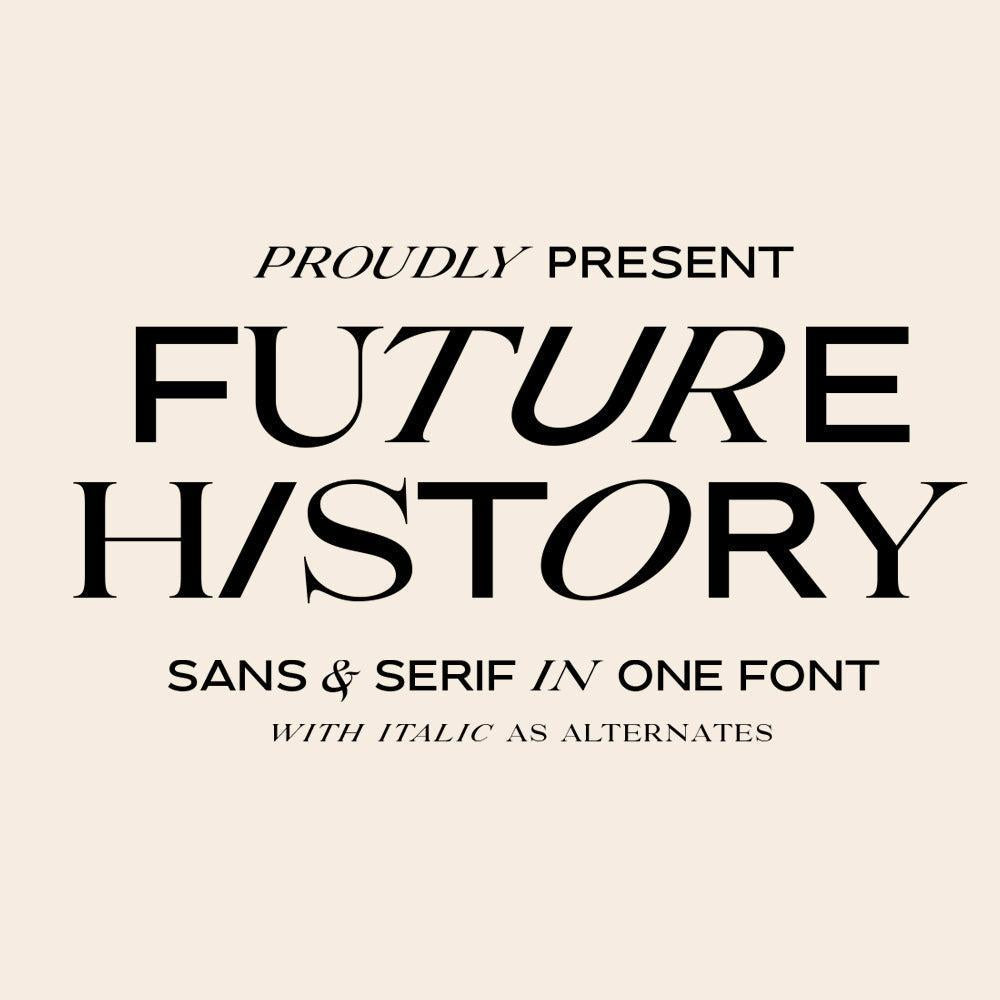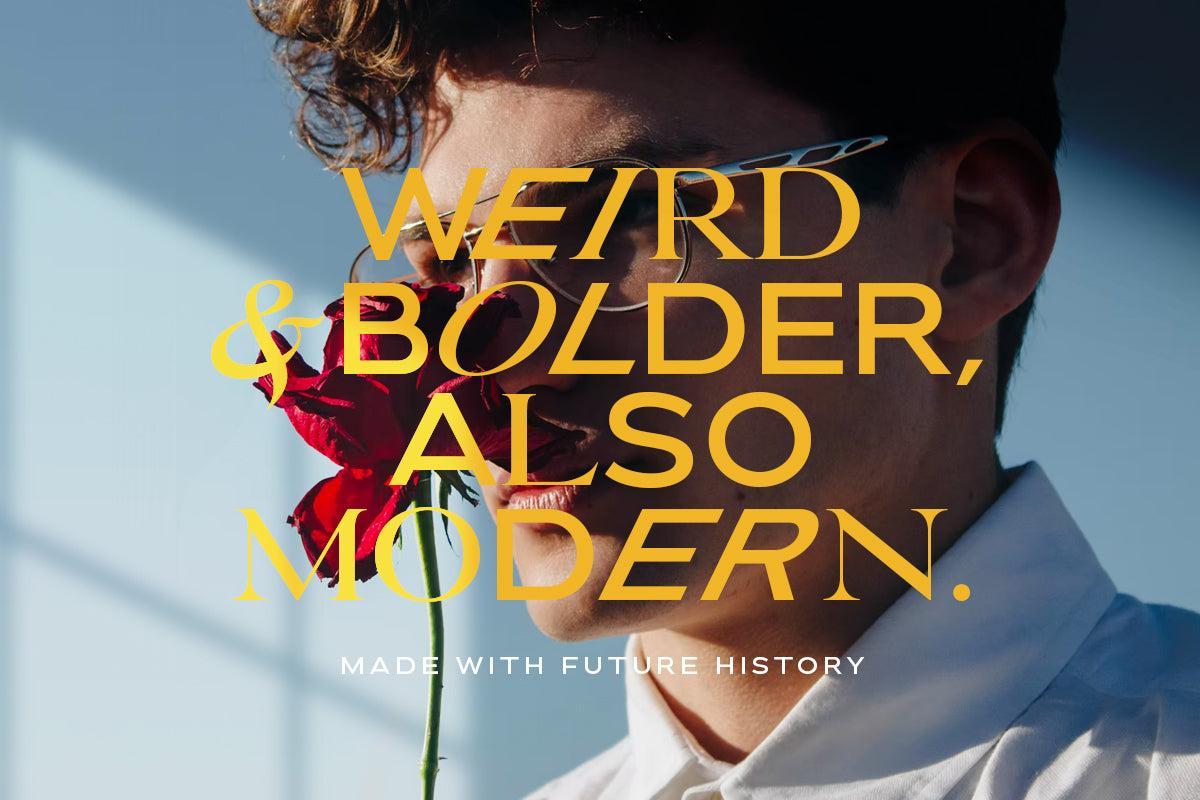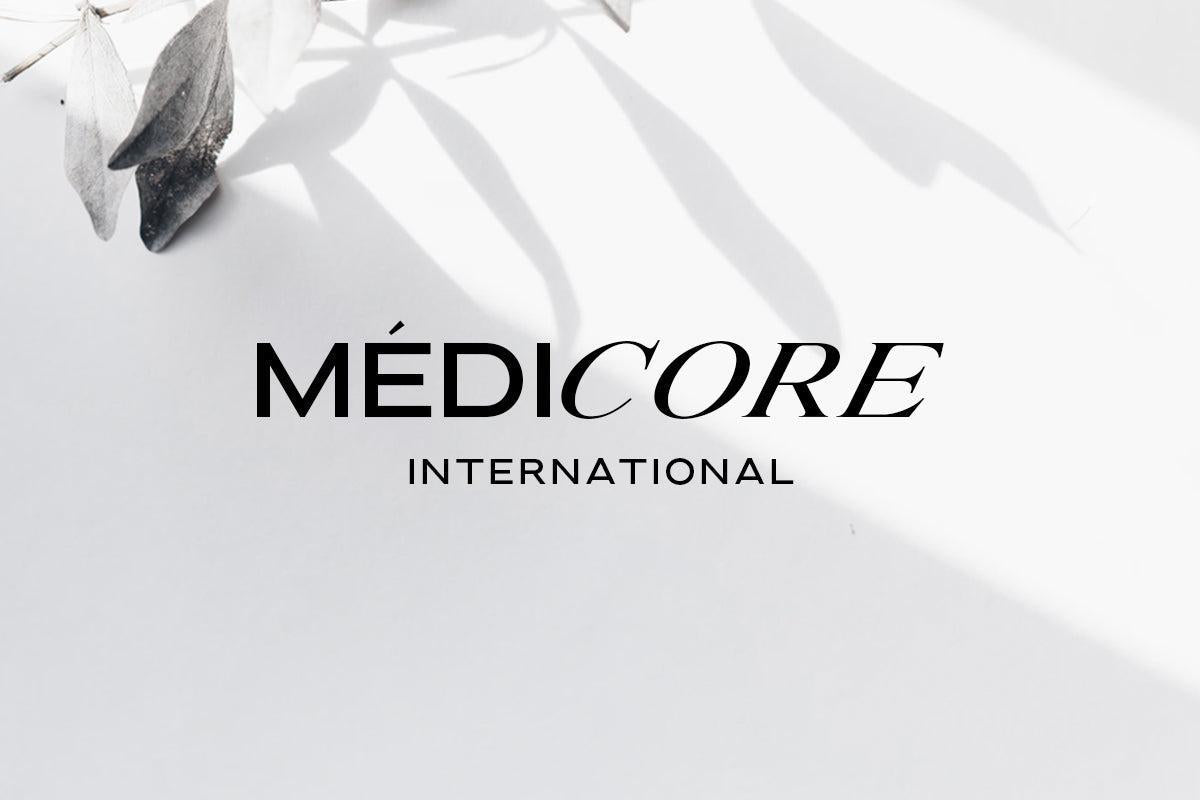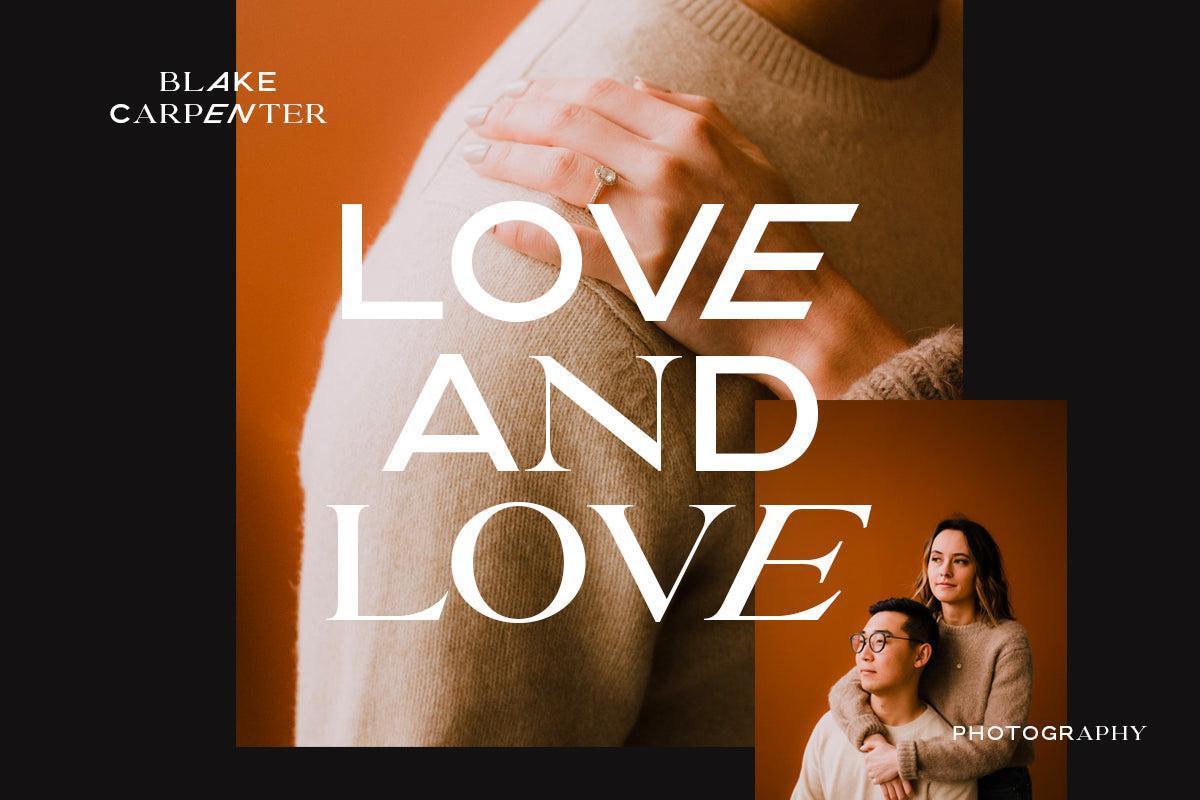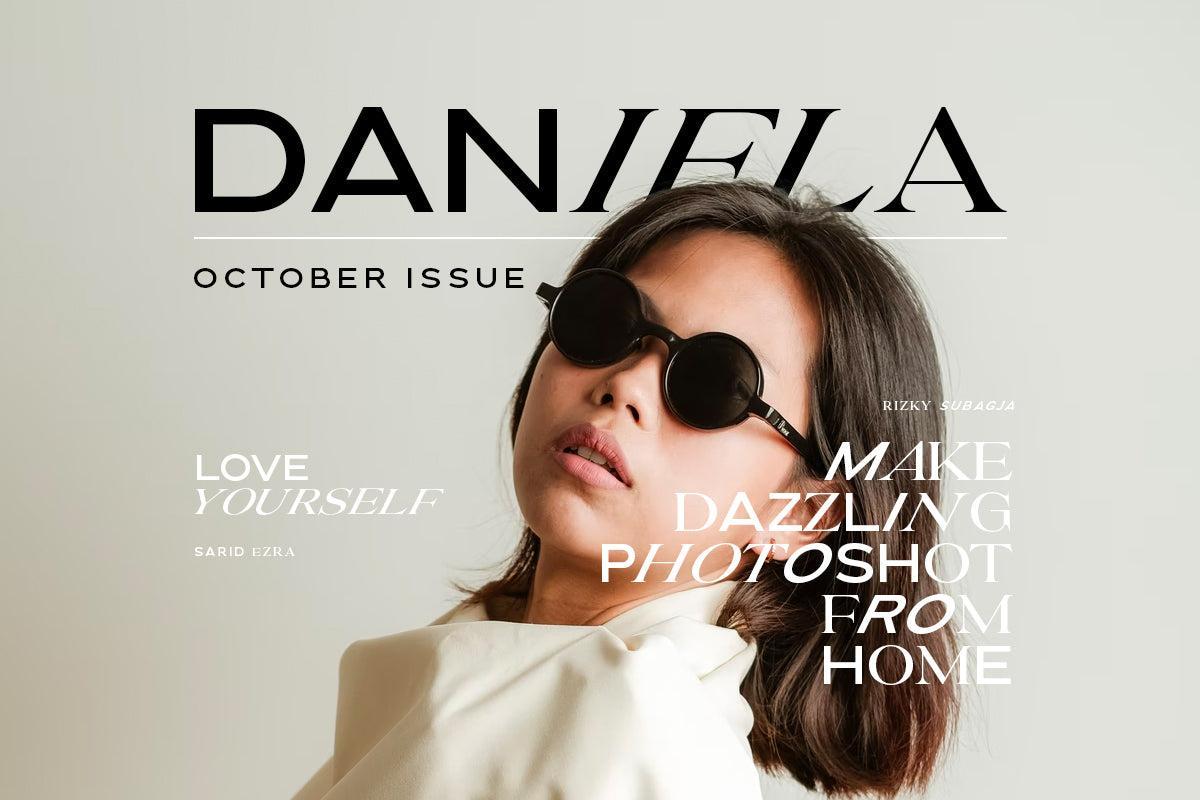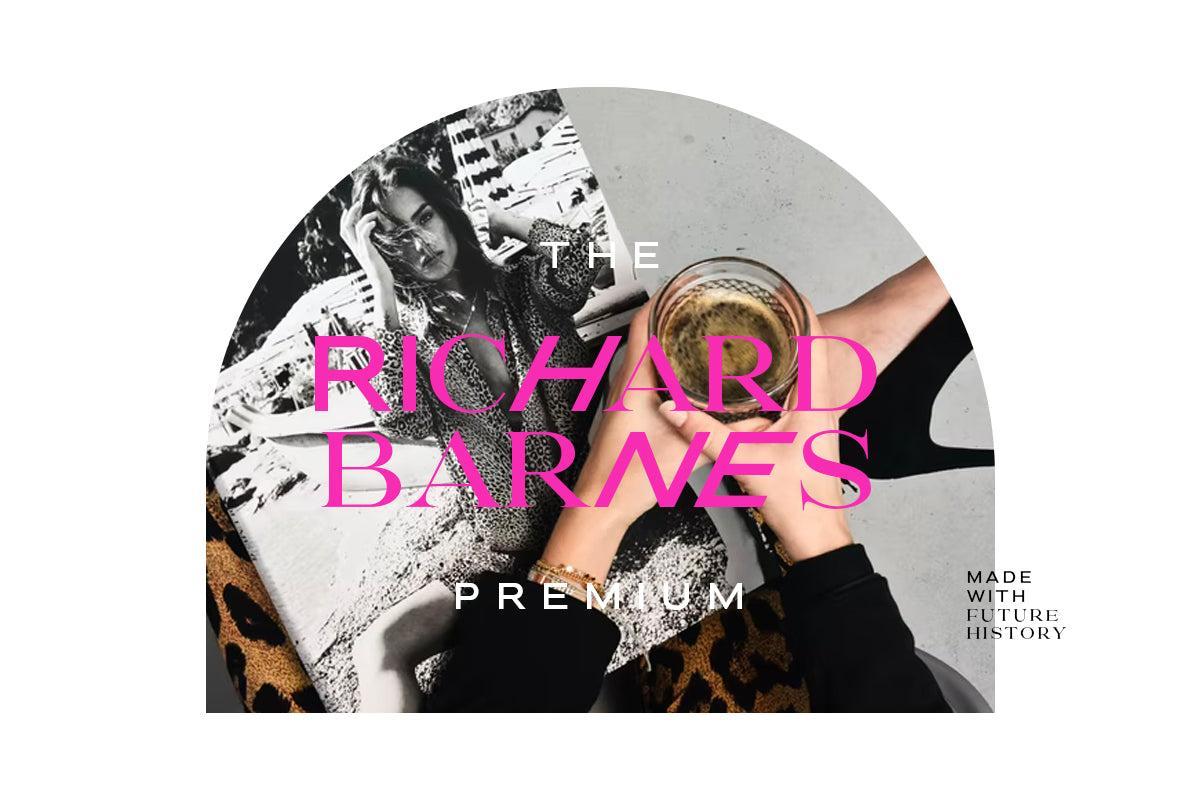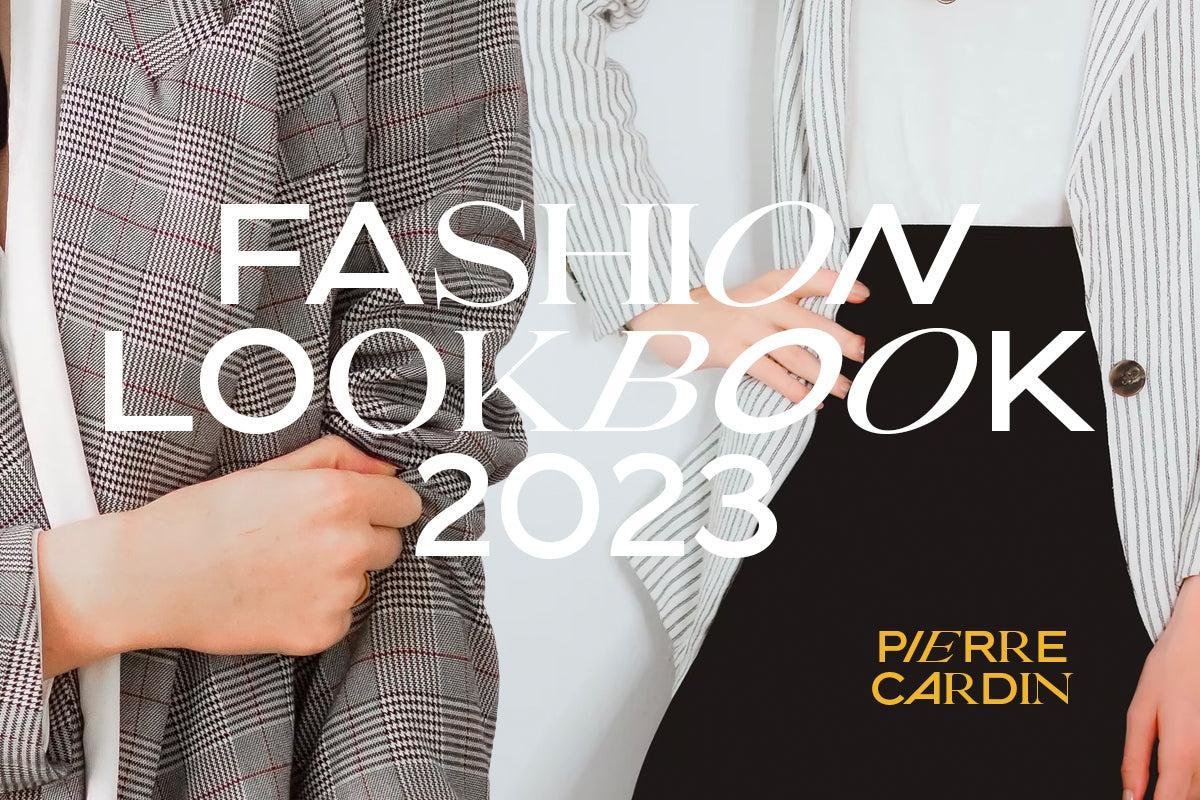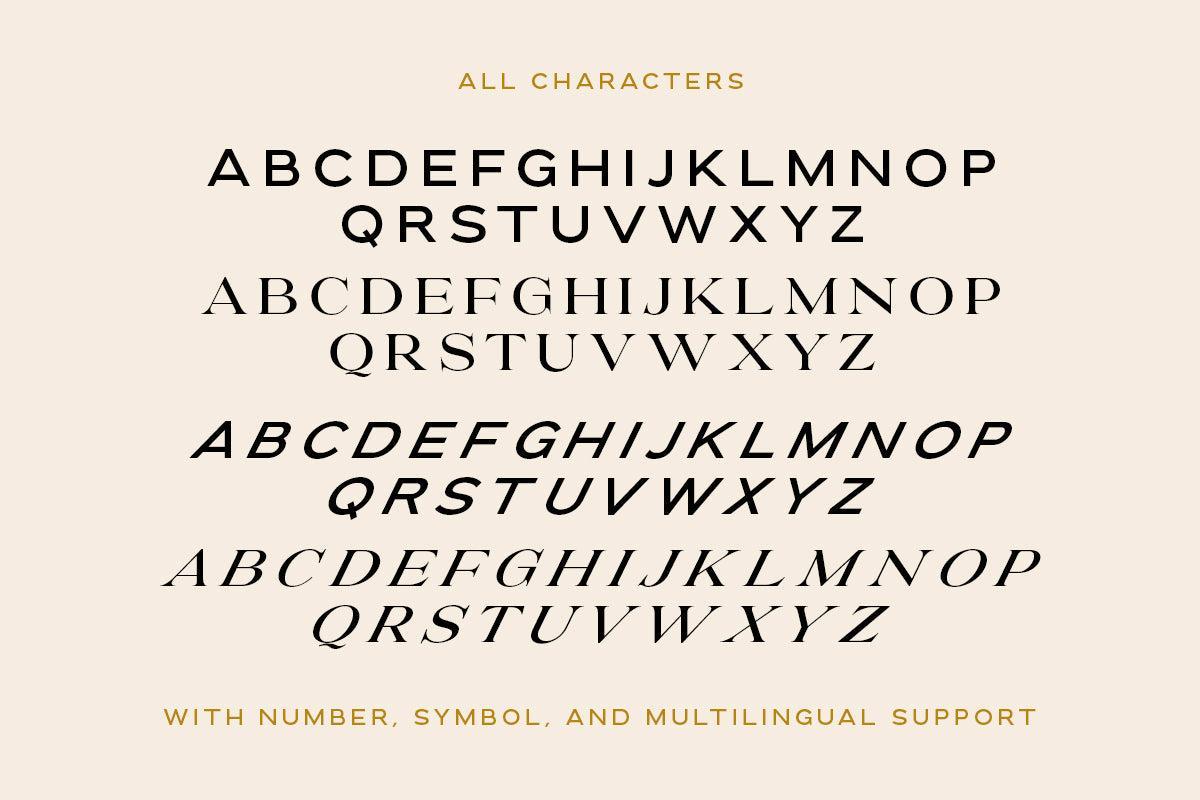
Future History - 2 in 1 Font
Future History - 2 in 1 Font is a modern font that combines both sans and serif styles in one typeface, featuring uppercase in sans and lowercase in serif. It includes an italic version as an alternate, supports multiple languages, and is designed for versatility in various applications.